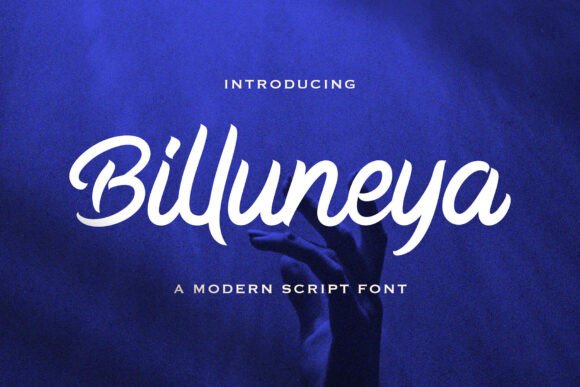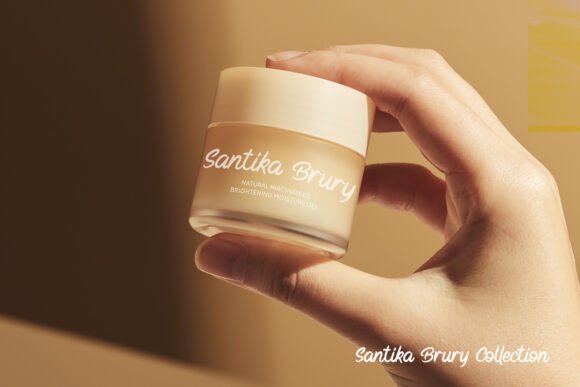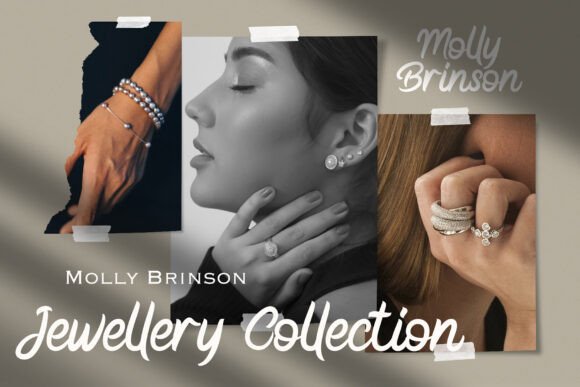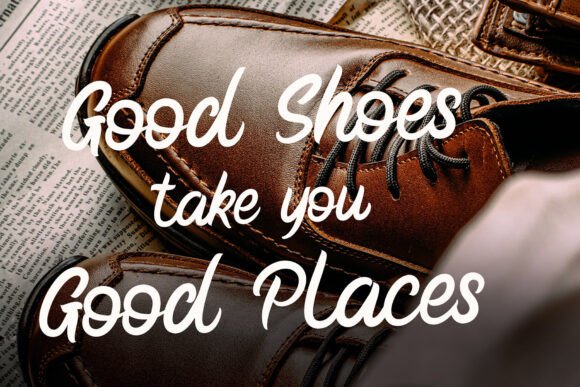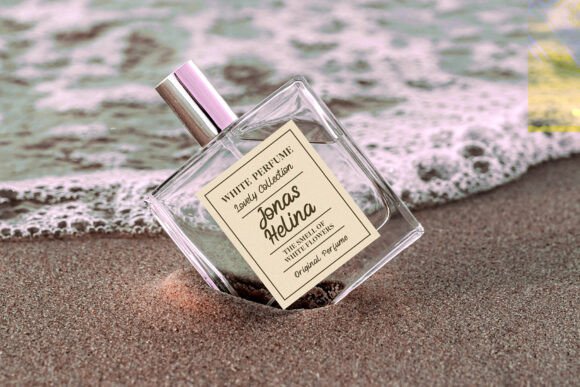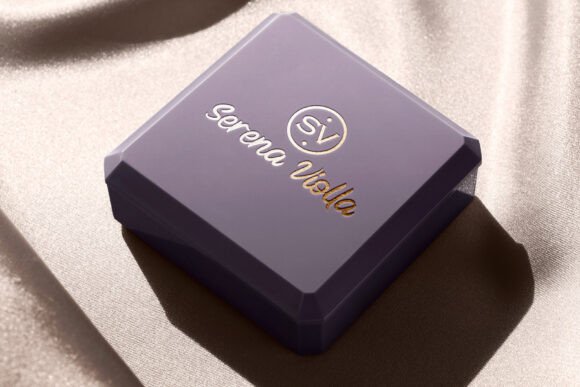
Discover the Elegance of Billuneya Font: Elevate Your Designs with a Timeless Touch
Are you on the hunt for a font that exudes elegance and sophistication? Look no further than the Billuneya Font, a stunning flowing handwritten font that is sure to capture your heart. With its incredibly distinct and timeless style, Billuneya is the perfect addition to your favorite projects, allowing you to create spectacular designs that stand out from the crowd.
The Characteristics of Billuneya Font
Billuneya Font is described by its elegant touch, which is evident in its flowing and cursive script. The font’s unique characteristics make it an excellent choice for designers and crafters looking to add a touch of sophistication to their work. Its timeless style ensures that your designs will remain relevant and stylish for years to come, making it a valuable addition to your font collection.
What Makes Billuneya Font Stand Out?
So, what sets Billuneya Font apart from other fonts? Here are a few key features that make it a standout:
- Elegant and Refined: Billuneya’s flowing script and cursive letters exude elegance and refinement, making it perfect for designs that require a sophisticated touch.
- Timeless Style: Unlike trendy fonts that quickly go out of style, Billuneya’s classic design ensures that your work will remain stylish and relevant for years to come.
- Distinct and Unique: Billuneya’s unique lettering and script make it instantly recognizable, allowing you to create designs that stand out from the crowd.
- Versatile: Whether you’re working on a logo, branding project, or social media graphics, Billuneya Font is versatile enough to adapt to any design style.
Billuneya Font is an excellent choice for designers and crafters looking to elevate their work with a touch of elegance. Whether you’re creating:
- Logos and Branding: Use Billuneya to create a sophisticated and memorable brand identity.
- Social Media Graphics: Add a touch of elegance to your social media posts and stories with Billuneya’s flowing script.
- Invitations and Stationery: Create beautiful and refined invitations, cards, and stationery with Billuneya’s classic design.
- Web Design: Use Billuneya to add a touch of sophistication to your website’s typography and design.
Tips for Using Billuneya Font
To get the most out of Billuneya Font, here are a few tips to keep in mind:
- Pair with Simple Fonts: Pair Billuneya with simple, clean fonts to create a striking contrast and make your design stand out.
- Experiment with Colors: Try pairing Billuneya with different colors and textures to add depth and interest to your design.
- Use for Headings and Titles: Use Billuneya for headings and titles to add a touch of elegance and sophistication to your design.
In conclusion, Billuneya Font is a stunning flowing handwritten font that is sure to capture your heart. With its elegant touch, timeless style, and unique characteristics, it’s the perfect addition to your favorite projects. Whether you’re a designer or crafter, Billuneya Font is an excellent choice for creating spectacular designs that stand out from the crowd. So why wait? Fall in love with Billuneya Font and elevate your designs to new heights!